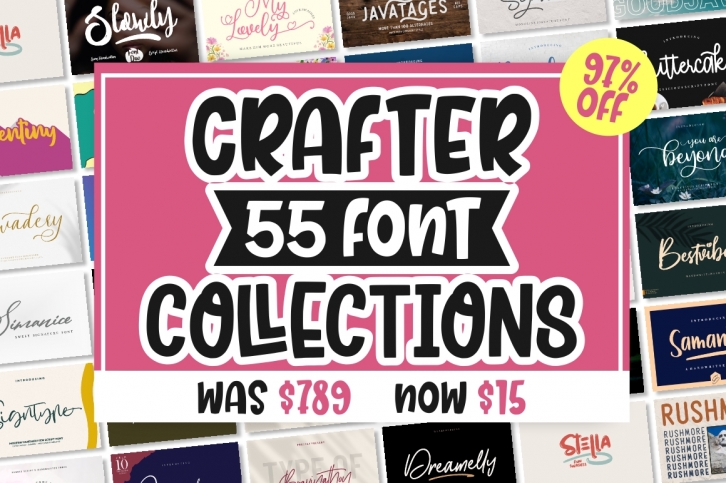
BEST CRAFTER COLLECTIONS is a gorgeous font that was realeased on November 18, 2019. The font can be used in many style contexts and design environments. Perfect for invitations, magazines, websites, logos, and more! It was designed by Good Java Studio and the file size is 8.66 MB. Thanks for checking out this font!